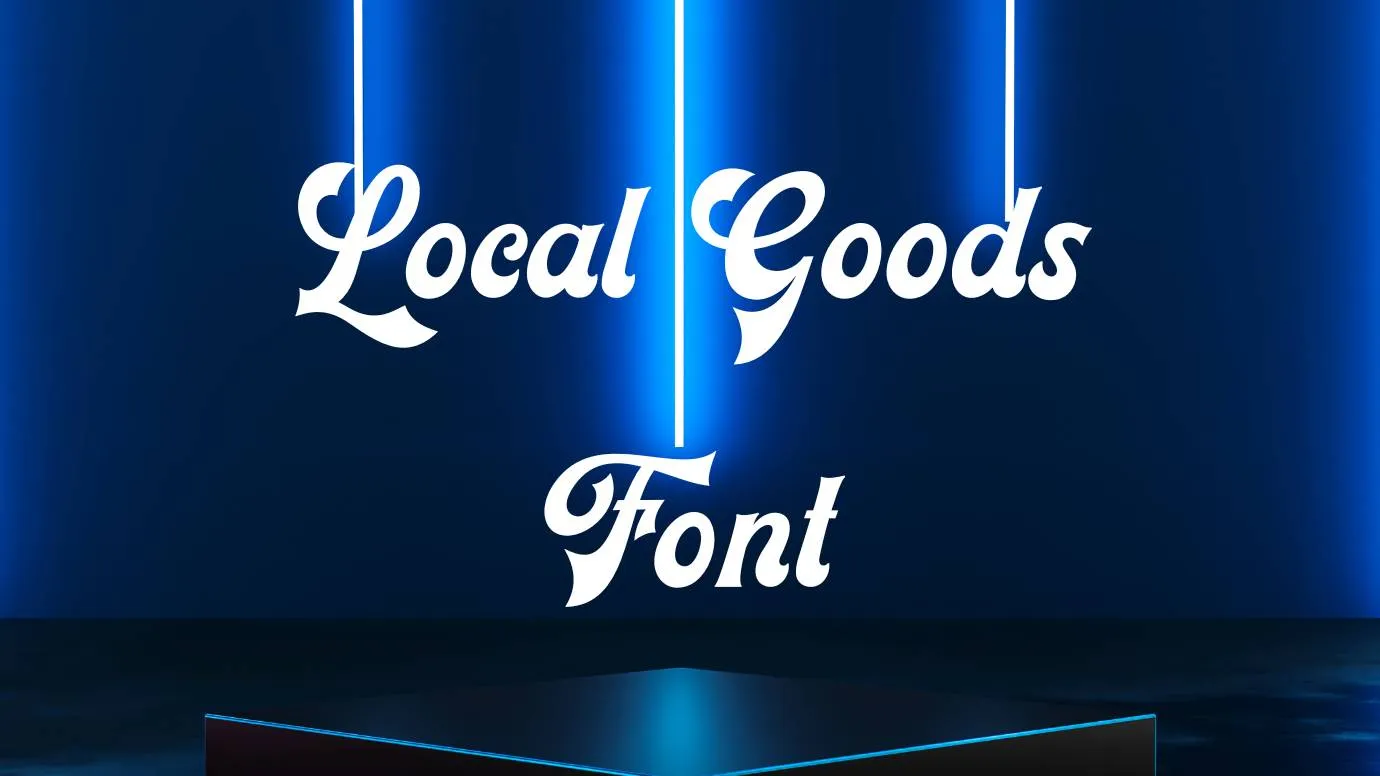
Local Goods Font Family has outstanding bold swashes that are so attractive. This amazing font comes in unique glyphs and outstanding stylistic alternates. Dede Mulyadi is the designer and HRDR is the publisher of this font.